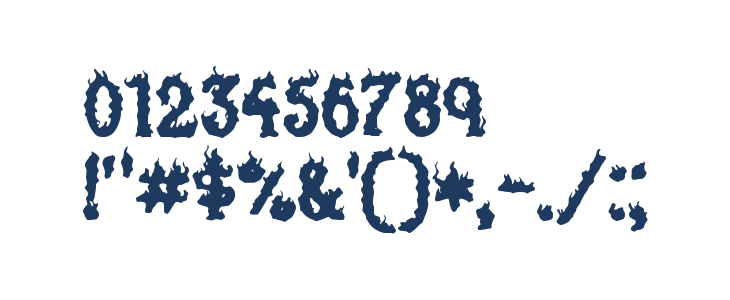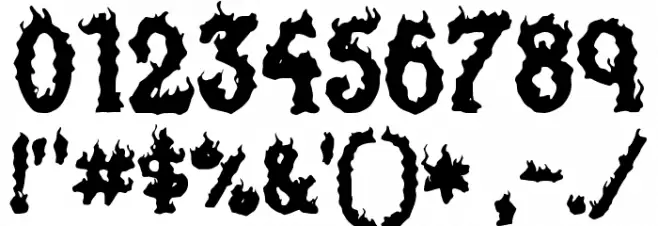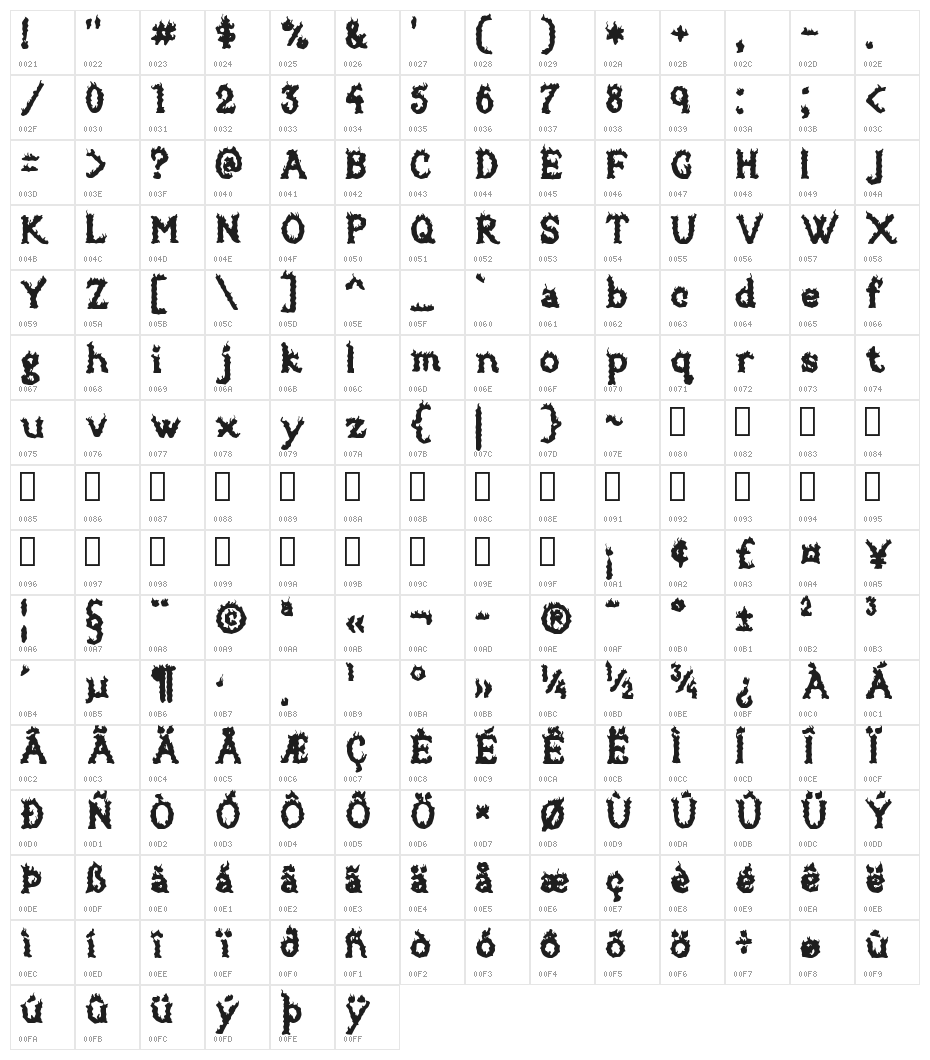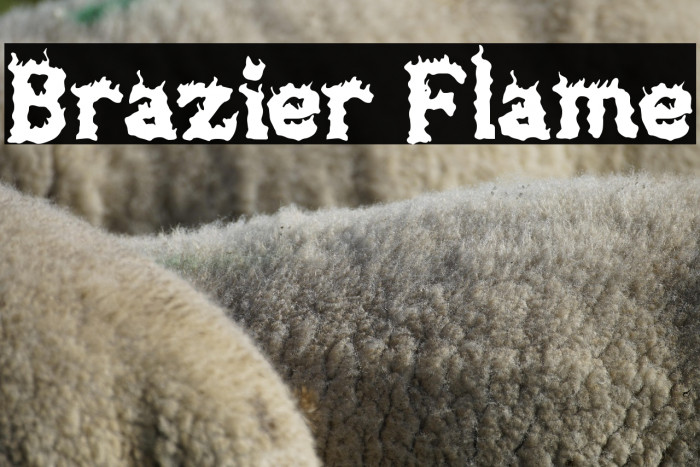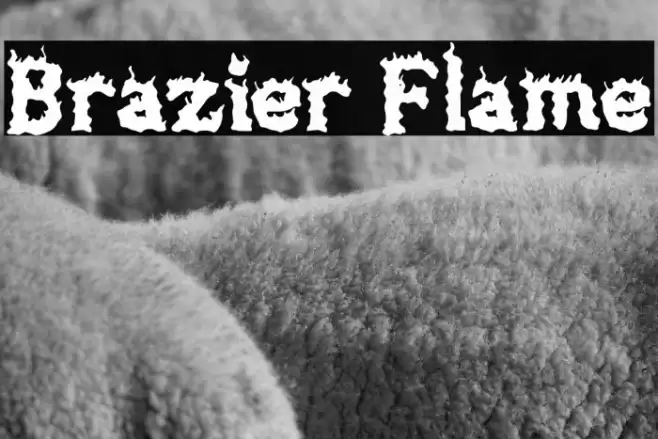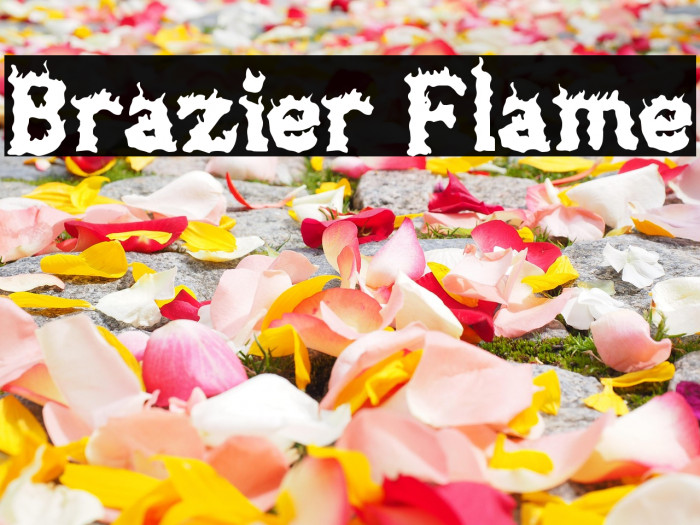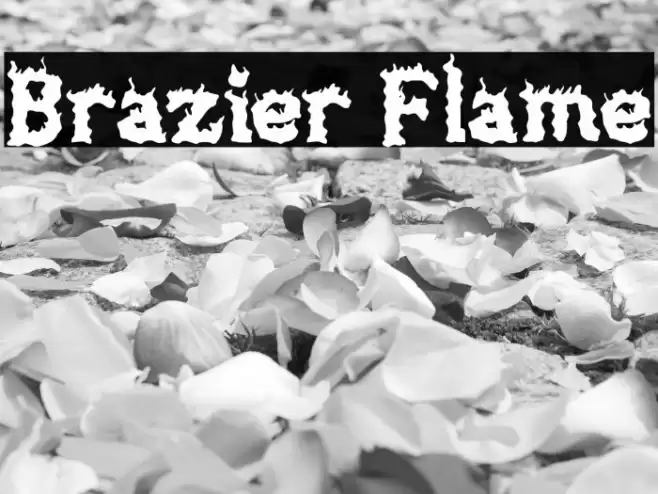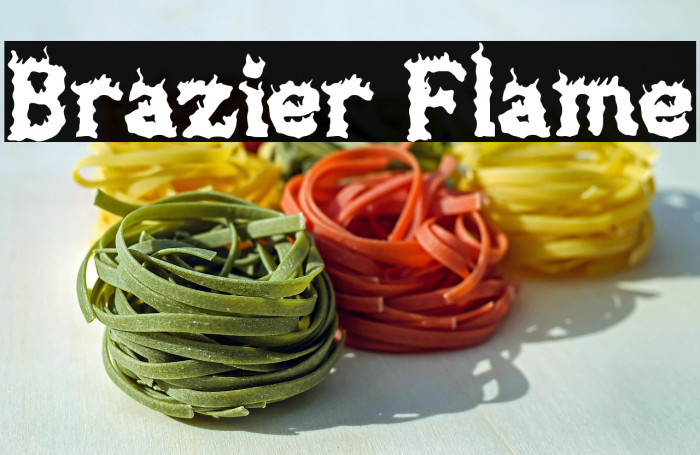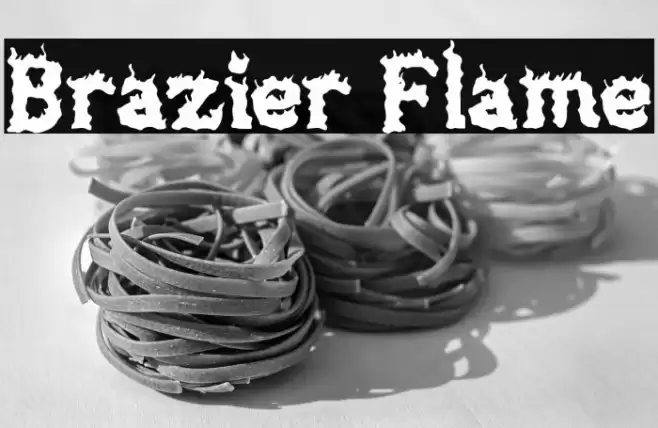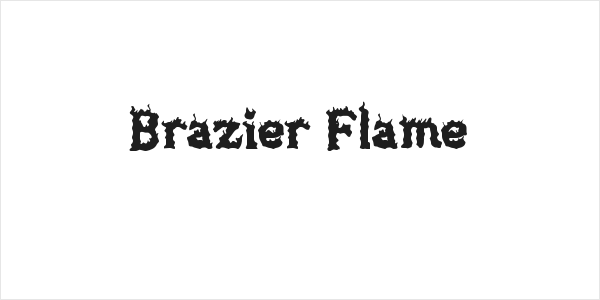
Brazier Flame Font
Brazier Flame Description
This font features a bold and dramatic design with letters engulfed in flame-like shapes, creating a sense of movement and intensity. The characters are heavily stylized, with jagged edges and uneven lines that mimic the unpredictable nature of fire. This design choice gives the font a dynamic and energetic appearance, making it ideal for attention-grabbing headlines or thematic projects. The uppercase and lowercase letters maintain a consistent style, while the numbers and special characters also follow the fiery motif, ensuring a cohesive look across all text elements.
Use CaseHeadlines, Logos, Thematic designs
Proposed ProjectsIdeal for Halloween-themed designs, fire-related branding, or any project needing a dramatic and energetic typeface.